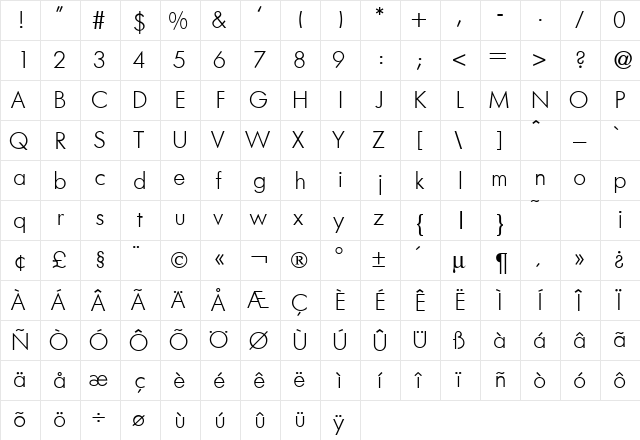
FutoralLightDB Normal Font Preview
FutoralLightDB Normal
Design Context for FutoralLightDB Typeface
FutoralLightDB takes a measured approach to typography — its balanced proportions and neutral character make it a reliable workhorse for both digital and print work. Its slender proportions lend an understated elegance to any composition.